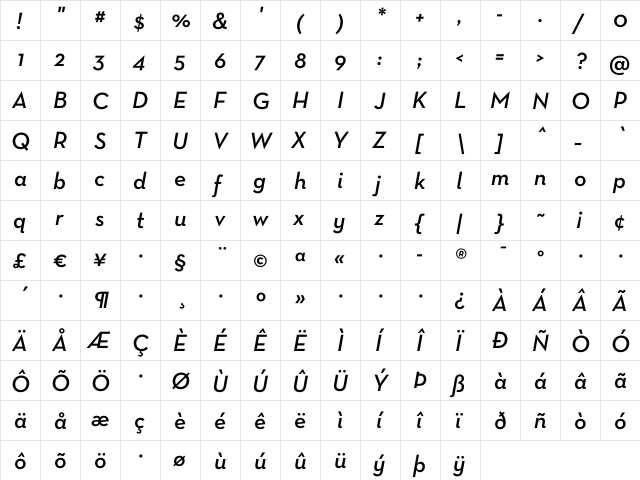
Neutra Text Light Demi Italic Font Preview
| Style | Demi Italic |
| Designer | Christian Schwartz |
Design Context for Neutra Text Light Typeface
Neutra Text Light takes a measured approach to typography — its balanced proportions and neutral character make it a reliable workhorse for both digital and print work. Its italic angle brings a sense of urgency and motion to the letterforms. Its slender proportions lend an understated elegance to any composition.